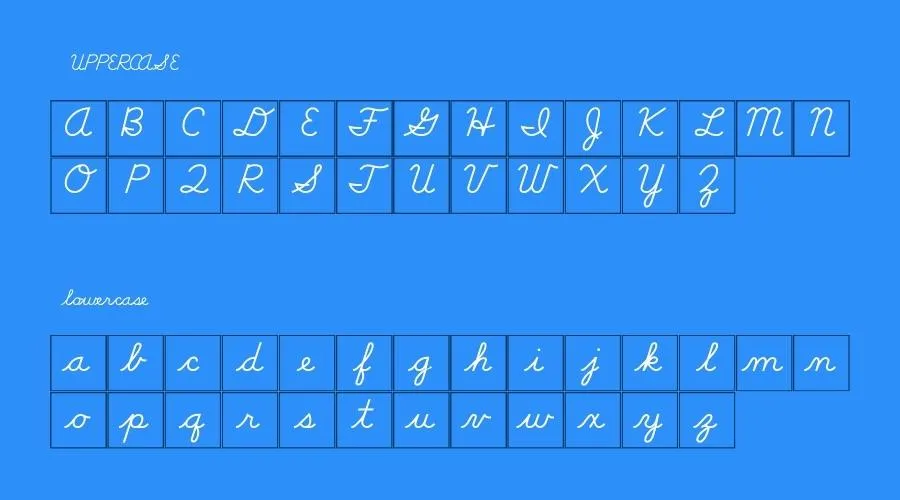
DN Cursive Font
About DN Cursive Font
The DN Cursive font was developed by a famous graphic designer known as the name of Ralf Herrmann. This font is under the category of the script typeface family with a stylish and unique texture. You can get it in both file formats Opentype and TrueType.
You can transform all of your basic textures into chic, more complex shapes using the wonderful texture’s online generator tool. Its texture is appealing and distinctive, and it uses online fonts. This typeface has multiple contemporary textures, including lowercase, uppercase, numerals, symbols, signs, and punctuation.
The DN Cursive Font has stylish and modern shaps. You may utilize it for any type of project. This contemporary typeface can be used in advertisements and is suitable for book covers, party stages, and stage designs. You may also be used for wedding-related headings or titles, CSS site design, T-shirt designs, and jacket designs.
Both printed and digital media have extensively used this typeface. Since it is simple to read at a glance, it is frequently used for headlines and brief blocks of text.
Additionally, the letters’ clear, uncomplicated lines make them a terrific option for logos and other graphic design projects. This font is perfect choice for making modren and stylihs purpoes, like logo designs, posters, banners, and much more.
Name DN Cursive Font
Designer Ralf Herrmann
Style Script
• DN Cursive Regular
• DN Cursive italic
Is DN Cursive Font easy to read?
Yes! This typeface can make your design easy to read for the visitors. You can easily create a very elegant project with the help of its stylish texture.